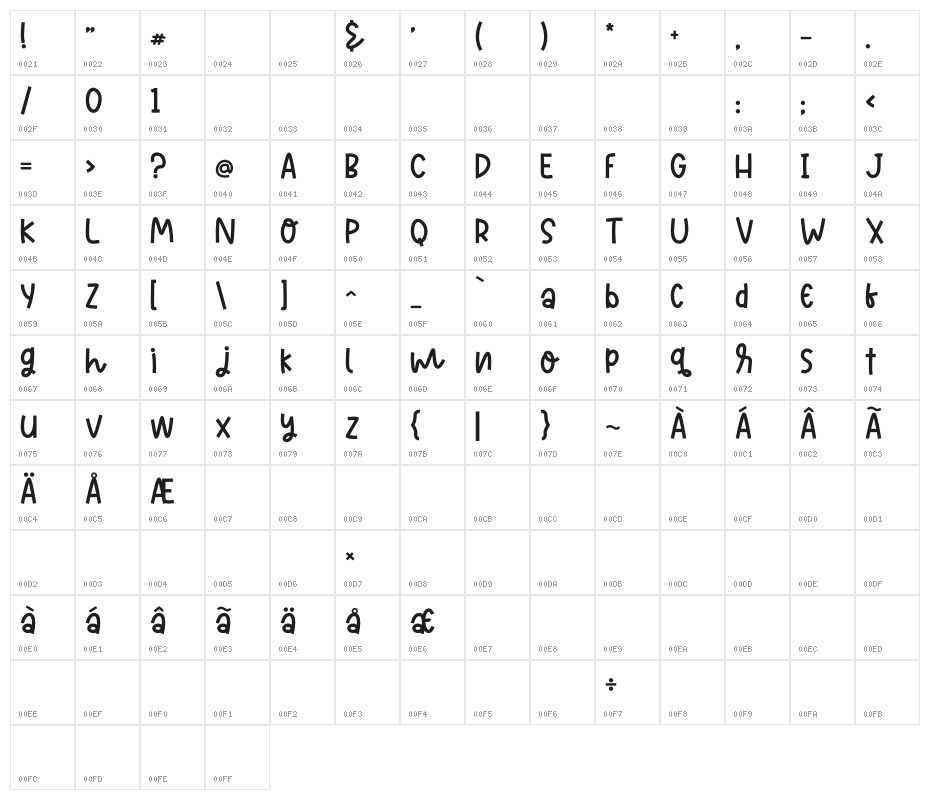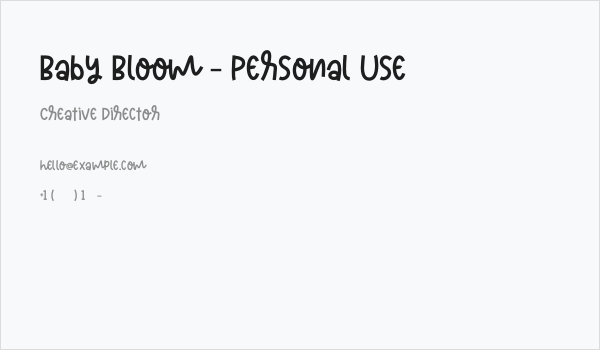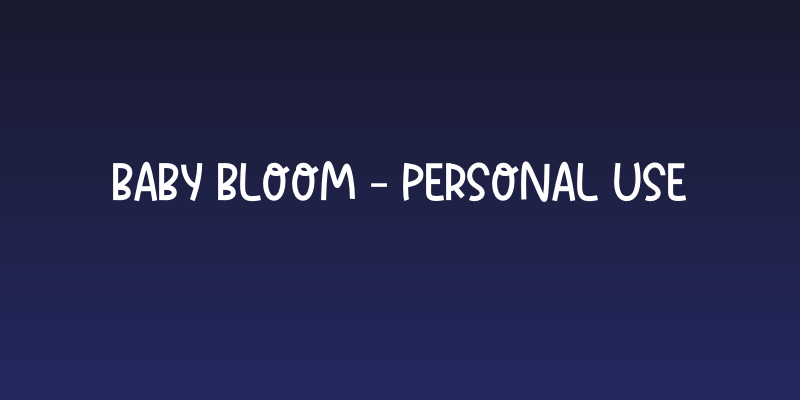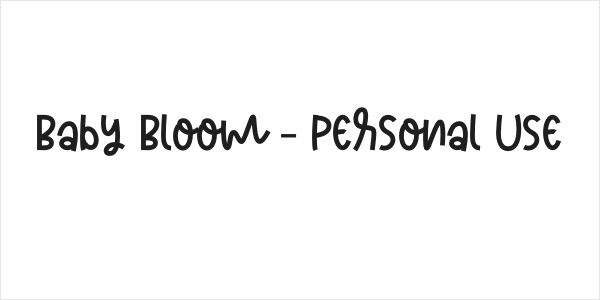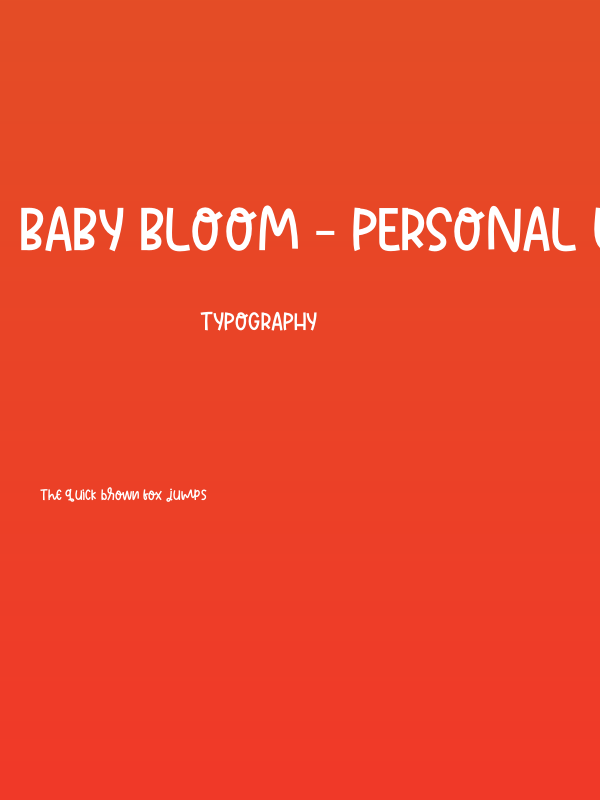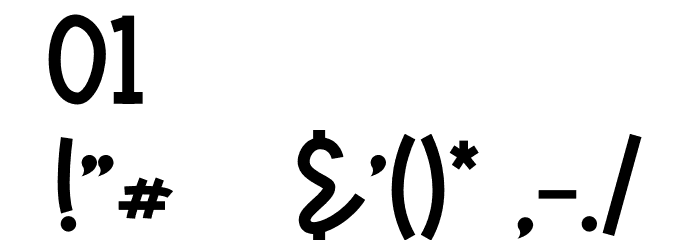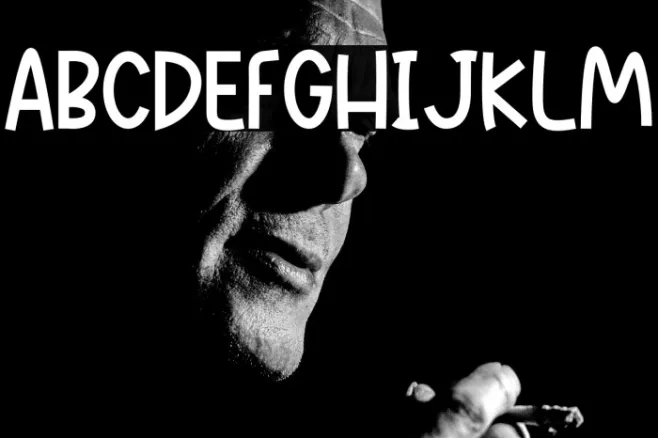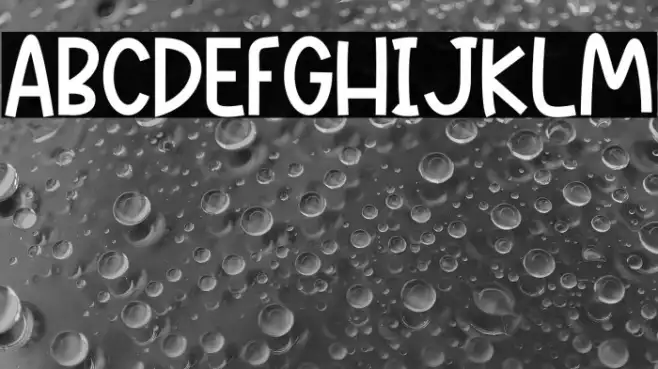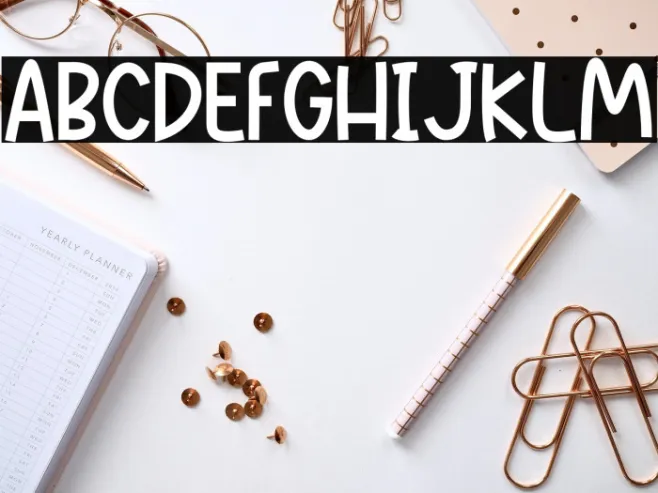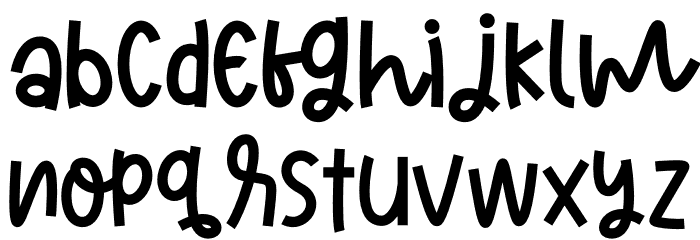
Baby Bloom - Personal Use Font
Baby Bloom - Personal Use Description
This playful and whimsical font features a handwritten style with a lively and energetic feel. The characters are bold and rounded, giving them a friendly and approachable appearance. The uppercase and lowercase letters have a consistent flow, with some letters exhibiting unique, playful twists. The numbers and special characters maintain the same lively aesthetic, making the font versatile for various creative projects. Its informal and fun style makes it ideal for children's books, playful branding, and casual invitations.
| Proposed Projects | Children's books, playful branding, casual invitations, greeting cards, and social media graphics. |